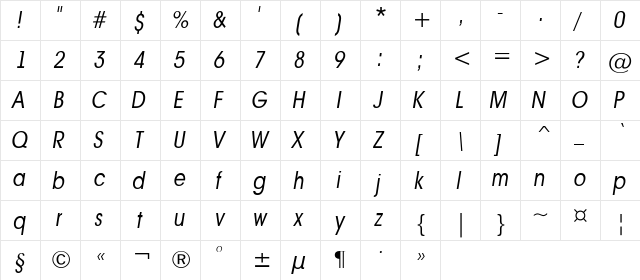
a_AvanteNrBook Italic Font Preview
a_AvanteNrBook Italic
Design Context for a_AvanteNrBook Typeface
a_AvanteNrBook offers clean, dependable letterforms without strong stylistic allegiance, making it a practical choice for designers who need flexibility. The dynamic lean of this cut emphasises speed and emphasis in any layout.
Pro Tip: Use a_AvanteNrBook for emphasis, pull quotes, and subheadings where its slanted energy can add rhythm to the layout.